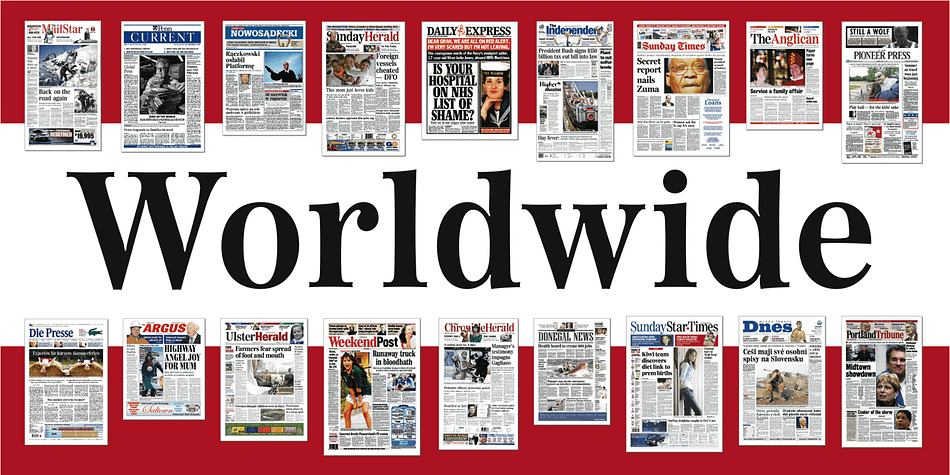
Worldwide
About Worldwide
Worldwide is a typeface in the Century idiom, designed with present day newspaper usage in mind. That\’s to say, it\’s somewhat condensed, and combines strong, traditional form with subtle finish. The characters follow the Century genre closely, although…